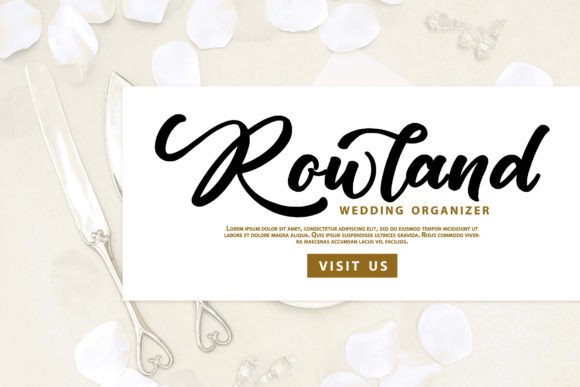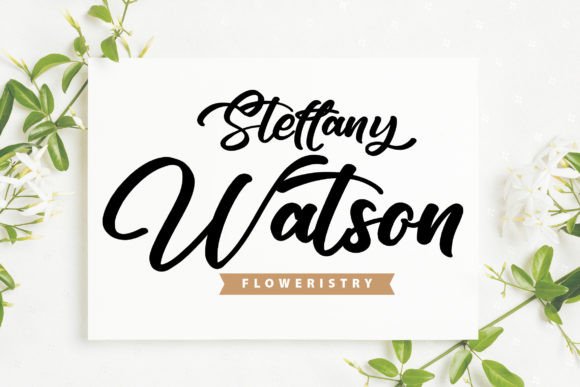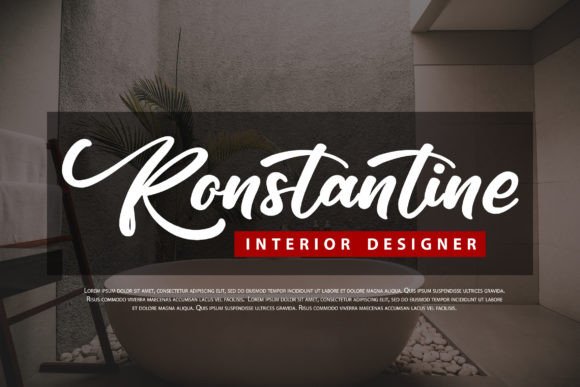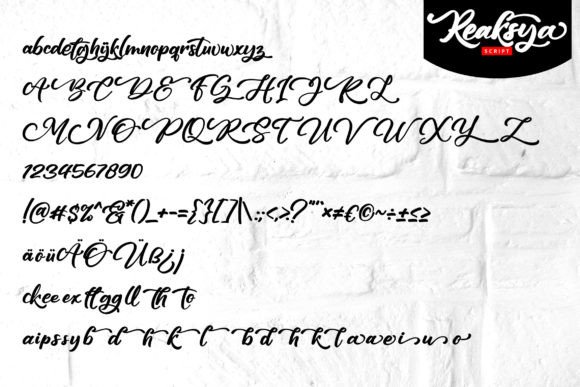
Introduction to Reaksya Font
Have you ever found yourself staring at a blank canvas, searching for the perfect words to bring your creative project to life? The blank page can be intimidating, but with the right design resource, the words start flowing effortlessly. This is where the Reaksya Font comes in – a beautifully crafted script font that will elevate your designs and leave a lasting impression.
As a designer, you’re constantly on the lookout for high-quality fonts that can add a touch of sophistication to your work. The Reaksya Font is an exquisite addition to any font library, offering a level of detail and nuance that’s hard to find in free downloads. With its transparent background and PUA encoding, this font is a valuable asset for any creative project, allowing you to access all glyphs and swashes with ease.
Key Features of Reaksya Font
- High-quality font designed for creative projects, perfect for adding a unique touch to your designs.
- Includes a wide range of characters, including Latin, Cyrillic, and Greek alphabets, making it suitable for multilingual projects.
- Perfect for use in various design resources, including logos, posters, brochures, and digital products.
Honest Review: Reaksya Font
I recently had the opportunity to work with the Reaksya Font, and I must say it’s been a game-changer for my creative projects. This font is perfect for designers looking for a high-quality, unique design resource.
Here are some of the things that impressed me about the Reaksya Font:
- ✨ Beautiful, hand-crafted letters that add a touch of elegance to any design.
- ✨ Perfect for use in creative projects where a touch of sophistication is required.
- ✨ Highly versatile, making it suitable for a wide range of design applications.
While the Reaksya Font has many impressive features, there are a few limitations to consider:
- ⚠️ Limited character set, which may not be suitable for longer texts or complex writing.
In conclusion, I’m thoroughly impressed with the Reaksya Font. It’s a high-quality design resource that’s perfect for designers looking to elevate their creative projects. While there are some limitations, the benefits far outweigh the drawbacks. If you’re looking for a unique and sophisticated font, I highly recommend giving the Reaksya Font a try.
The Reaksya Font is ideal for various design projects, including business cards, brochures, and social media graphics. Its unique design and high-quality typography make it a perfect choice for creative professionals and designers.